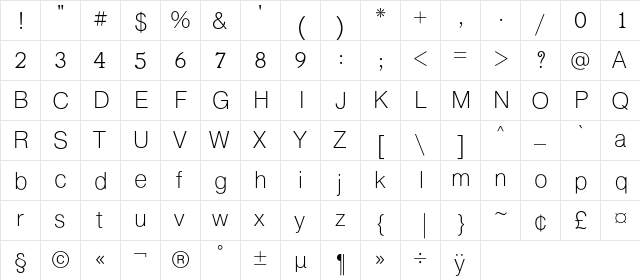
Chweulebrivi Regular Font Preview
Chweulebrivi Regular
Chweulebrivi Regular Font Details
Design Context for Chweulebrivi Typeface
Chweulebrivi takes a measured approach to typography — its balanced proportions and neutral character make it a reliable workhorse for both digital and print work.